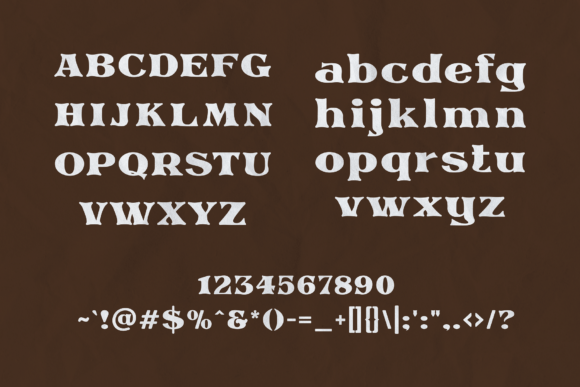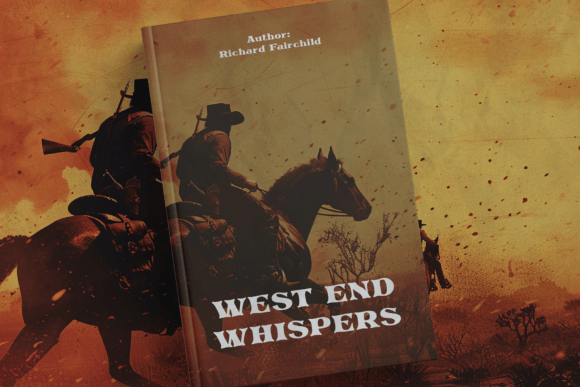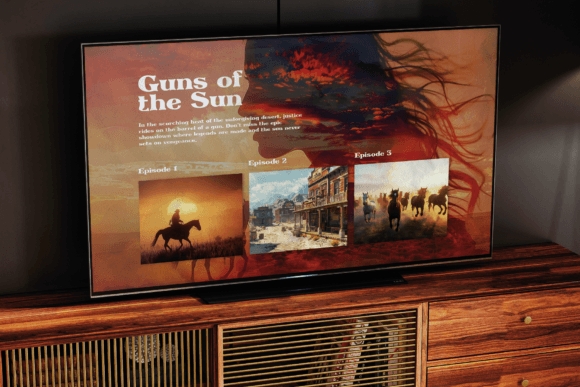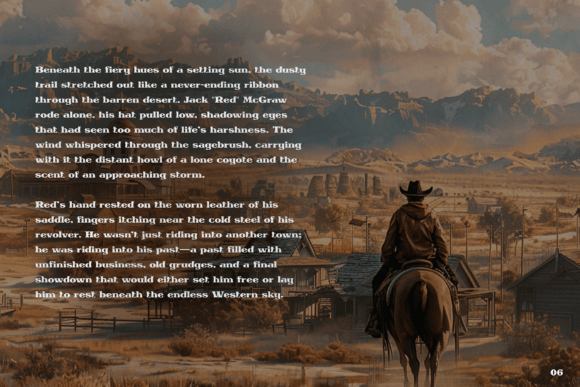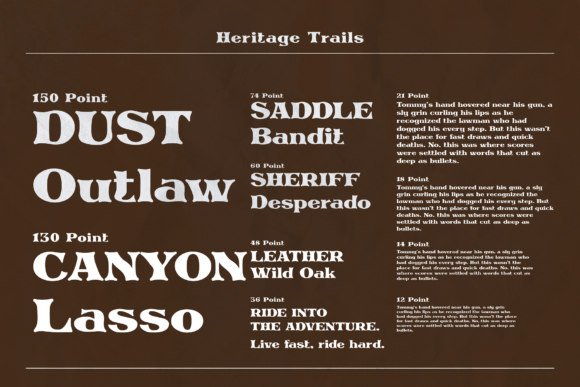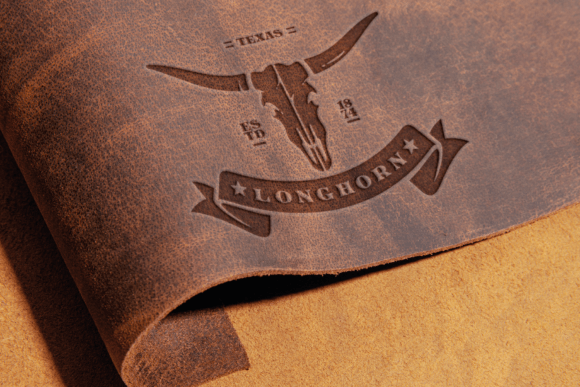
Introduction to Heritage Trails Font Font
Fonts play a crucial role in design, and the Heritage Trails Font font is a typeface that brings both character and versatility to any project. Whether you’re working on a branding project, a website, or a print design, the Heritage Trails Font font offers a unique style that can elevate your work.
Introducing Heritage Trails, a typeface that transports you back to the untamed heart of the Wild West.
With every curve and line, this hand-drawn font captures the raw, rugged essence of a bygone era, where the frontier was wild, and every trail told a story Heritage Trails is more than just a typefaceβitβs a journey through time, evoking the weathered signs of old saloons, the hand-painted posters of traveling shows, and the dusty trails that led to adventure.
The Heritage Trails Font font is more than just a typeface β it’s a design tool that helps you communicate your message with style and clarity. Its unique character set and versatile design make it suitable for a wide range of applications, from elegant invitations to bold headlines.
With its carefully crafted letterforms and balanced proportions, the Heritage Trails Font font ensures readability and visual appeal across all mediums.
What makes Heritage Trails Font font special?
The Heritage Trails Font font stands out with its unique design, exceptional readability, and versatility across various design applications.